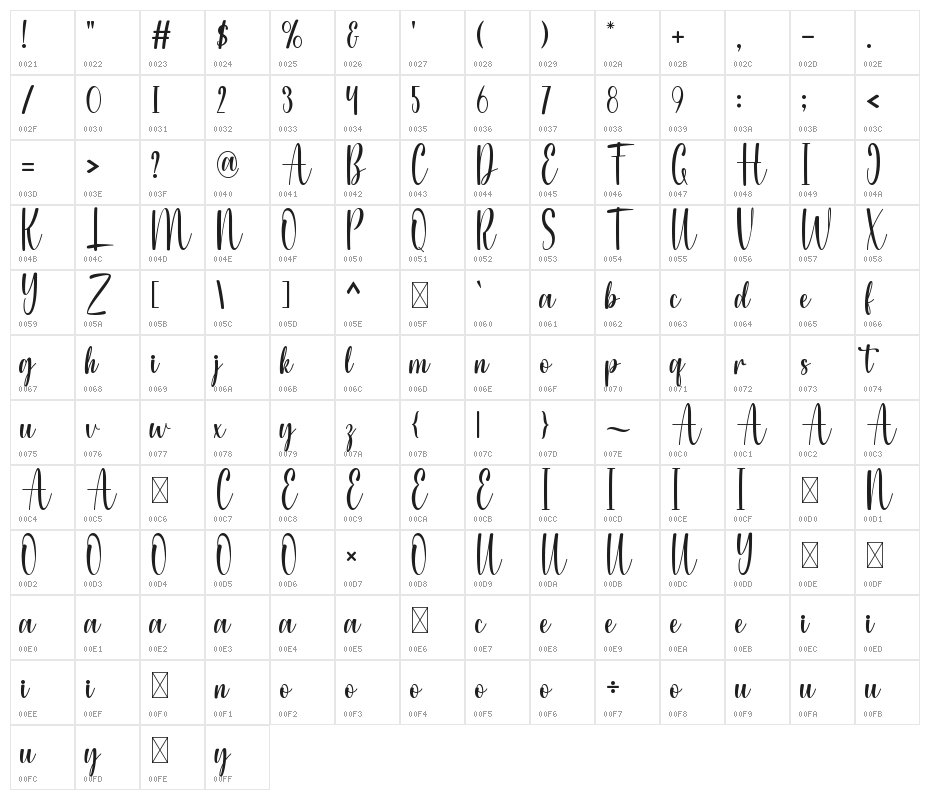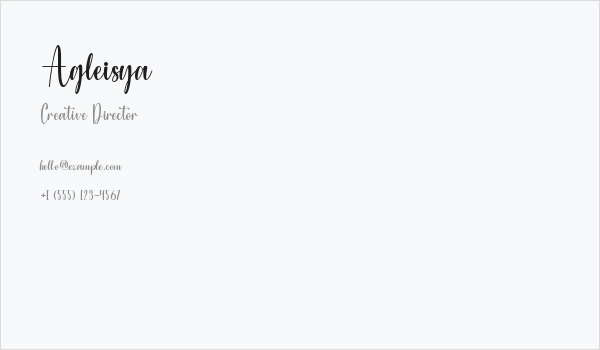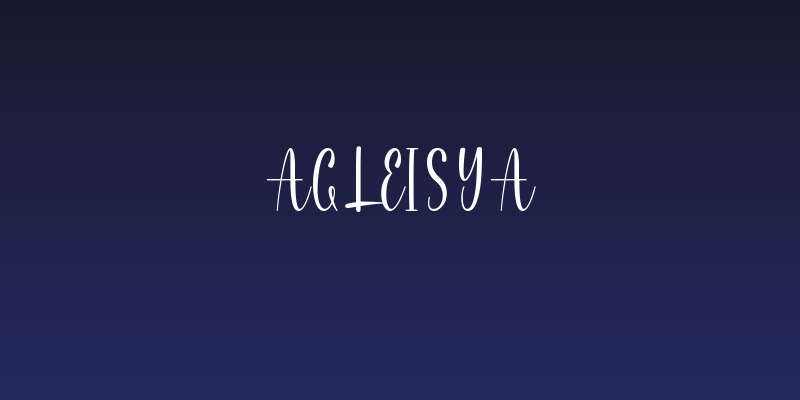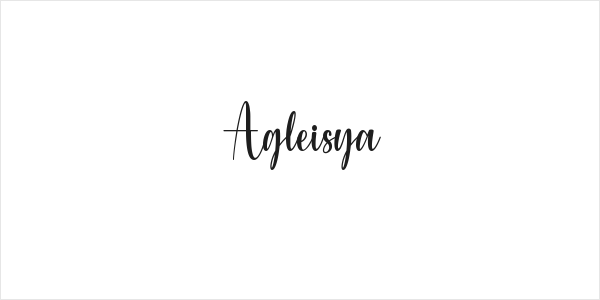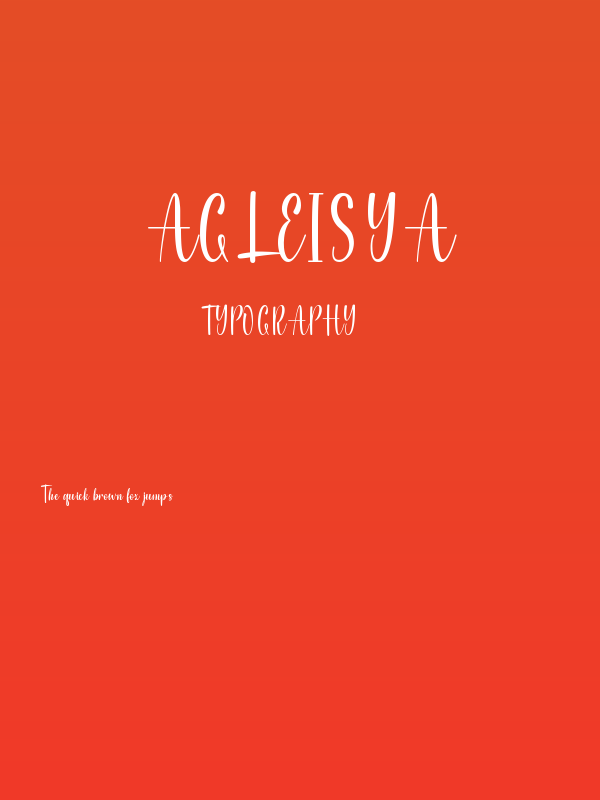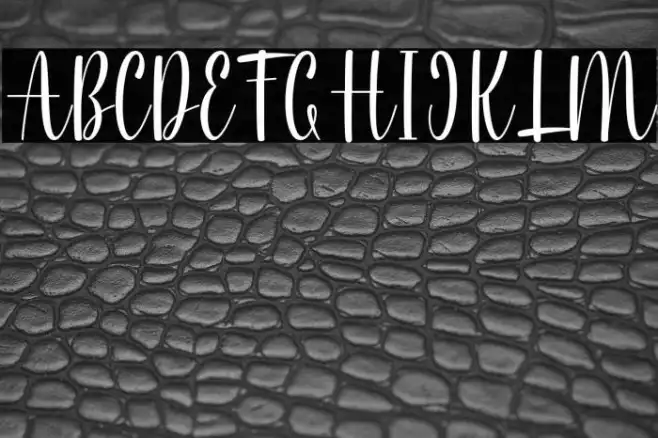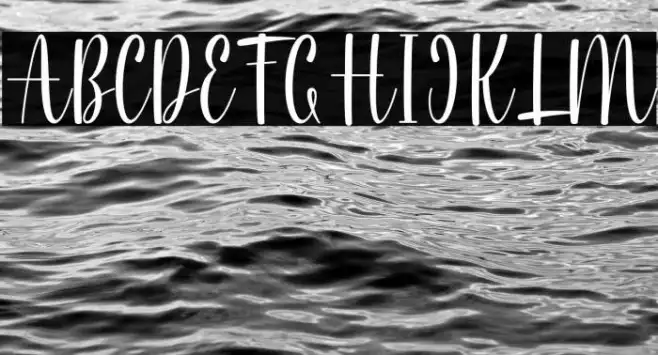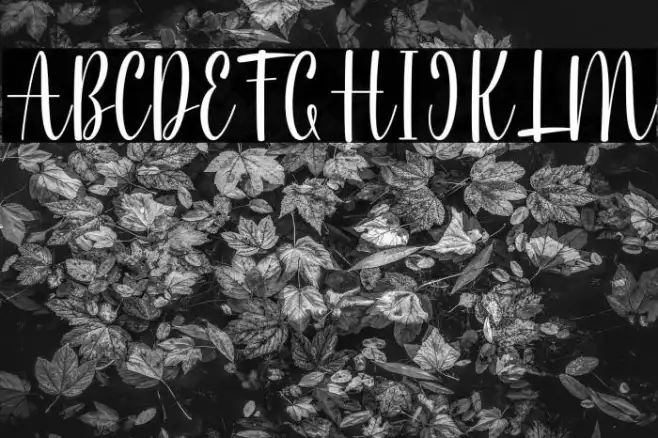
Agleisya Font
Agleisya Description
This font features a lively and expressive script style with a handwritten feel. The uppercase letters are tall and elegant, with a slight slant that adds a dynamic touch. The lowercase letters are more fluid, with smooth curves and loops that enhance the font's playful character. The numerals are consistent with the overall style, maintaining the same flowing lines. Special characters are creatively designed, fitting seamlessly with the rest of the font. The overall appearance is both modern and whimsical, making it suitable for a variety of creative projects.
| Proposed Projects | Ideal for wedding invitations, greeting cards, branding, and social media graphics. |